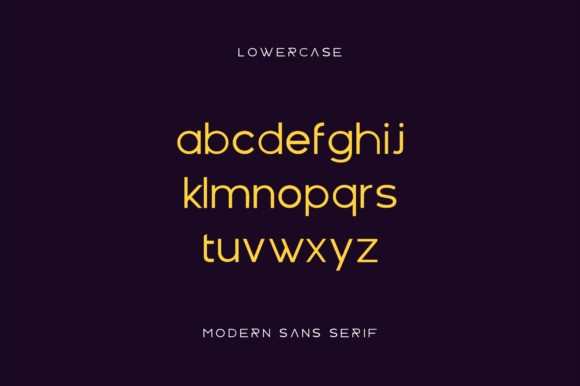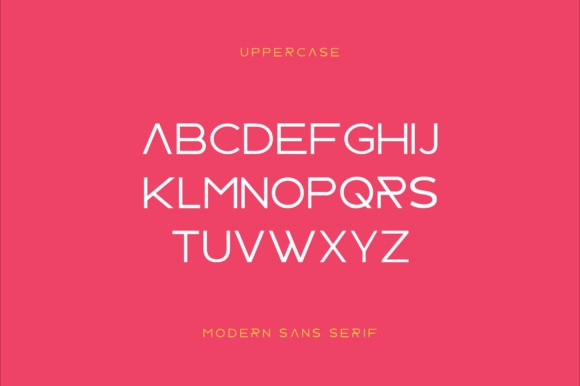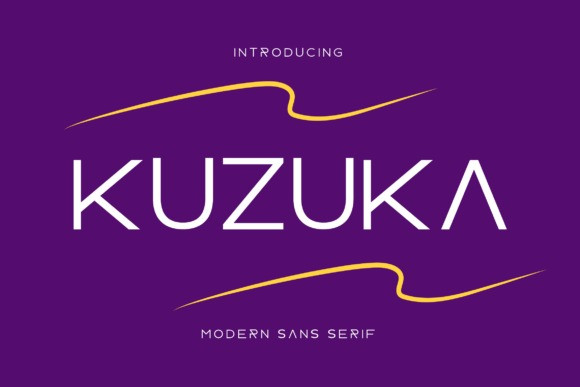
Kuzuka Font
Kuzuka Font is a clean and confident sans serif font crafted with sharp lines and minimal distraction. Inspired by modern aesthetics and functional design, Kuzuka blends geometric balance with a bold presence — making it perfect for branding, posters, logos, digital interfaces, and editorial layouts that demand clarity and impact.